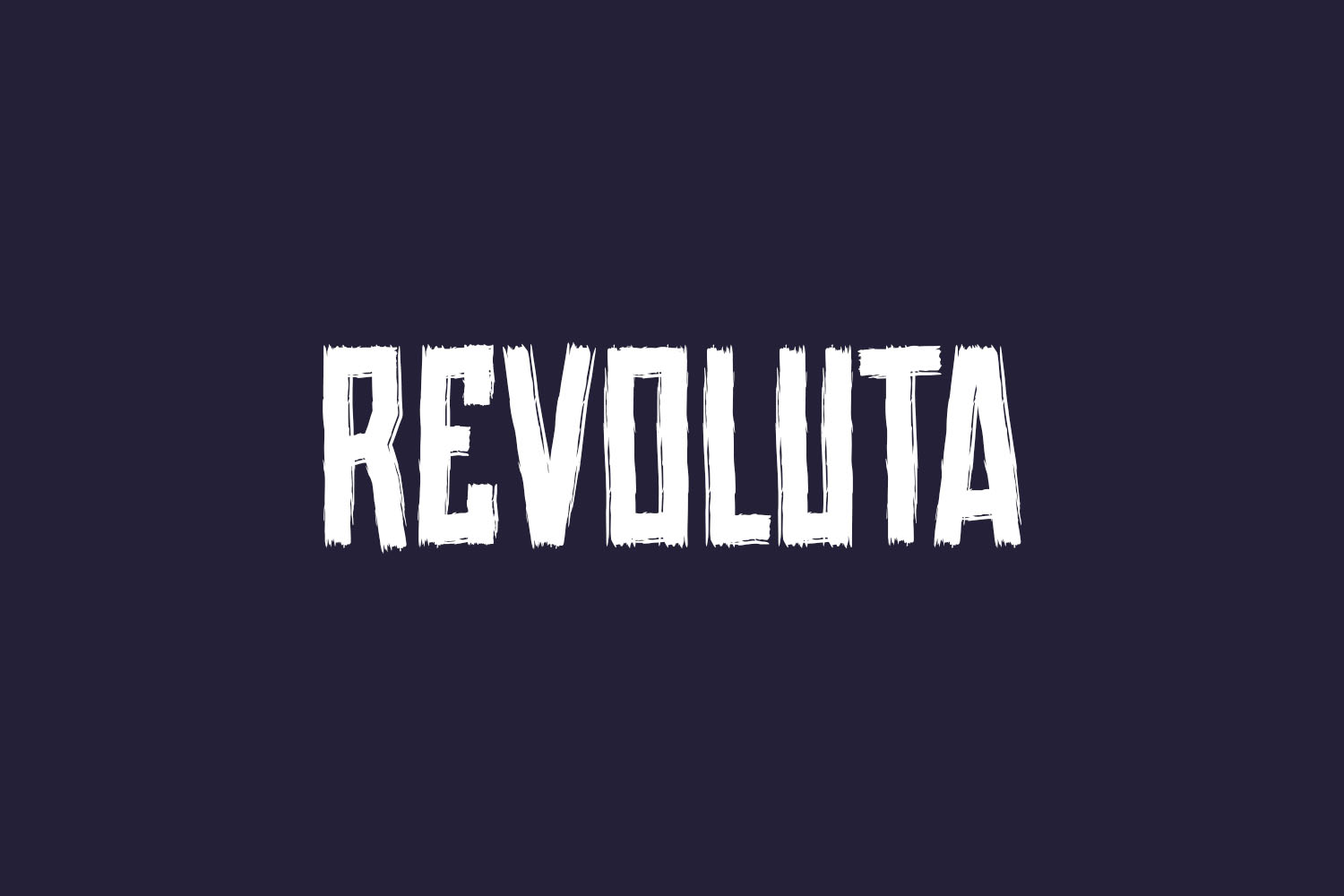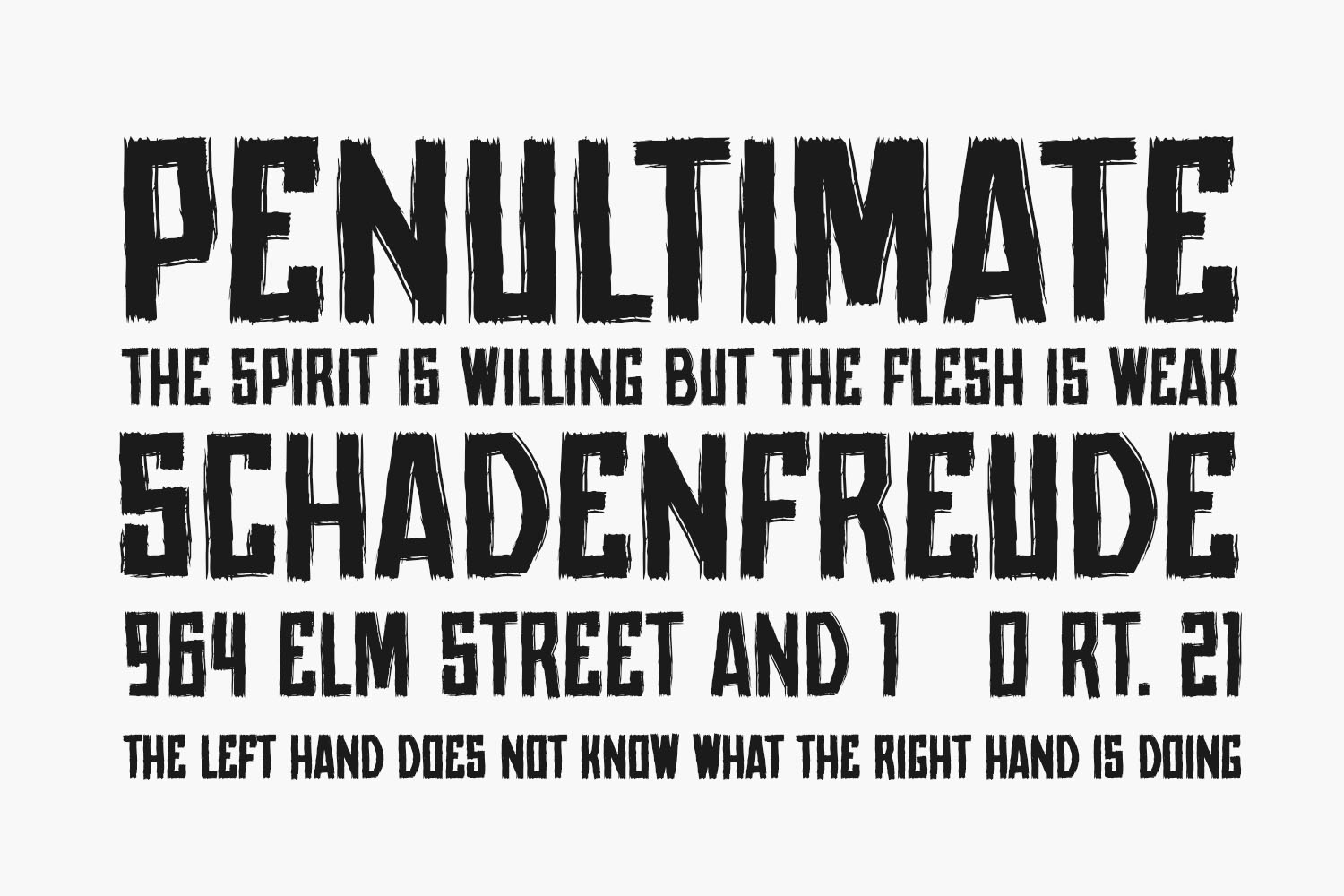
Revoluta Free Font is a striking and modern display font characterized by bold, squared letterforms and a distinctive robotic style. This font exudes strength, confidence, and dynamism, making it an ideal choice for designs that require a bold and assertive character. Revoluta Free Font was designed by Gassstype and is free for personal use only. Please purchase the full version for commercial use.